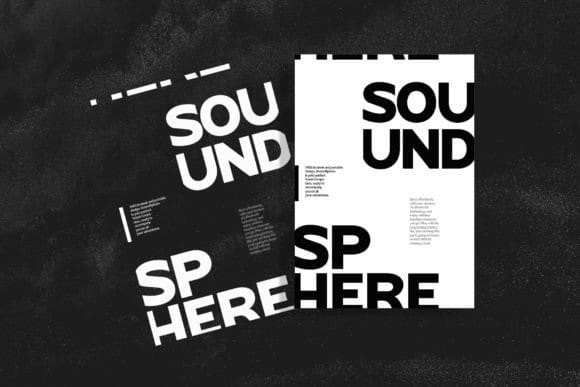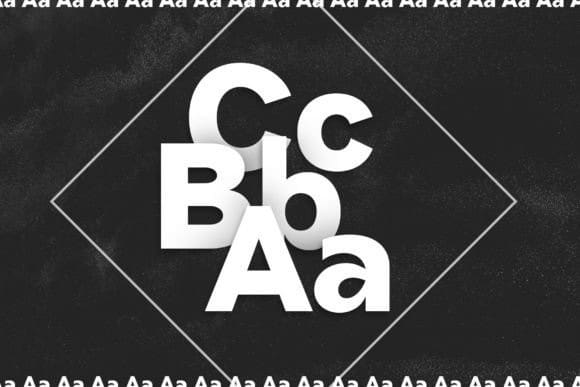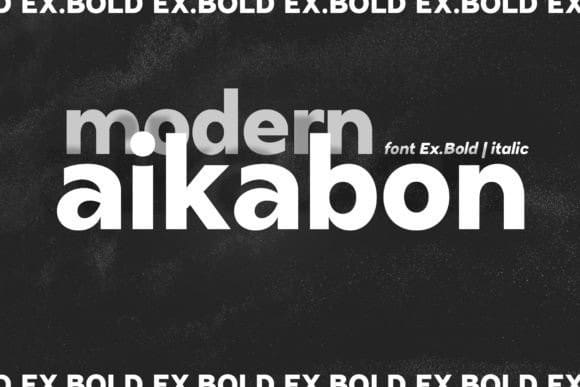
Aikabon Font
Aikabon Font, modern sans-serif. This sleek headline font boasts clean lines, making it perfect for grabbing attention in logos, print materials, posters, and advertising campaigns. Its contemporary aesthetic exudes confidence and sophistication, while its versatility allows it to seamlessly integrate into a variety of design projects. With Aikabon Font, your message will stand out with boldness and style, commanding attention wherever it’s used.